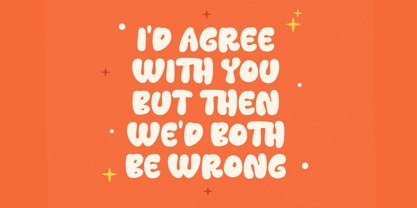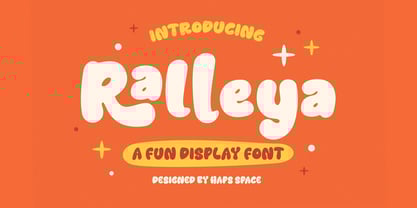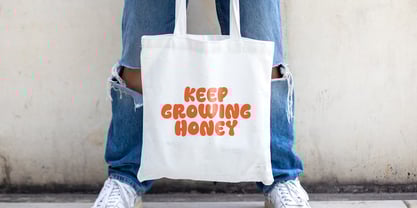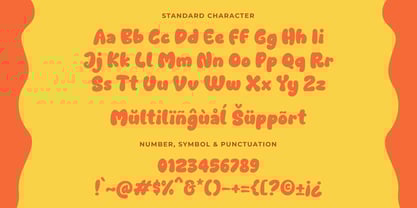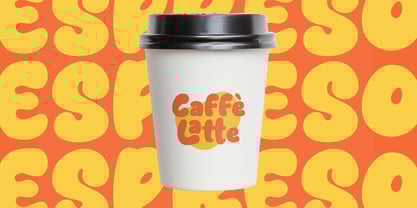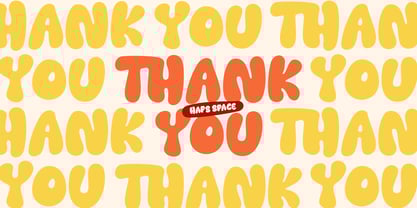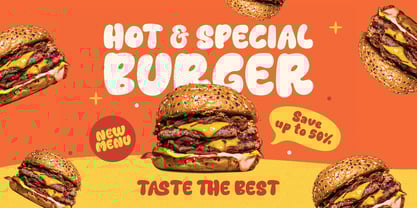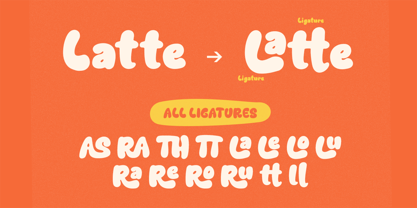
Ralleya
by Haps Space
The Ralleya Font Family was designed by Haris Purnama Putra, Egi Ahmad Mufid and published by Haps Space. Ralleya contains 1 styles.
Ralleya is a bold and bouncy display font that brings cheerful energy to your creative projects. With its playful curves, chunky forms, and cartoonish vibe, Ralleyya is perfect for kids-themed designs, packaging, fun logos, posters, and anything that needs a dose of happiness.
This all-uppercase font is super versatile and easy to use, with smooth readability and a joyful aesthetic that stands out in any design. Whether you're working on branding or birthday invitations, Ralleyya will make your message pop with personality.
Designers: Haris Purnama Putra, Egi Ahmad Mufid
Publisher: Haps Space
Foundry: Haps Space
Design Owner: Haps Space